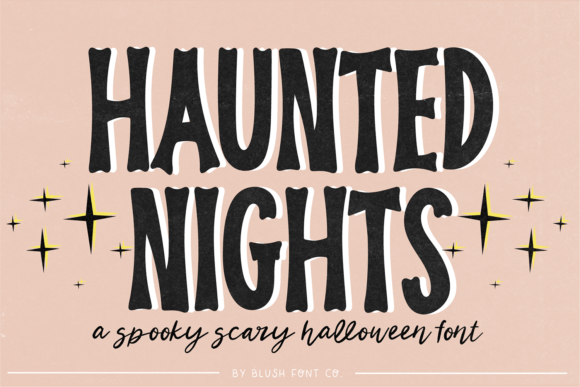
Introducing Haunted Nights Font, the ultimate choice for adding a spine-chilling touch to your Halloween creations! Crafted by the talented designers at blushfontco, this captivating display font is specifically tailored to elevate your spooky designs and set the perfect atmosphere for all things haunted.
Unleash your creativity with Haunted Nights Font, the best font for all things scary. Its unique and eerie aesthetic will send shivers down your spine and captivate anyone who lays eyes on your Halloween projects. Whether you're designing party invitations, creating web graphics, or decorating your haunted house, this font is a must-have for any Halloween enthusiast.
With Haunted Nights Font, your Halloween designs will truly come to life. Its hauntingly beautiful characters give your text an enchanting and mysterious allure that will leave a lasting impression on your audience. From ghostly posters to bone-chilling banners, this font adds an extra dose of fear and excitement to your creations.
Embrace the versatility of Haunted Nights Font, as it effortlessly adapts to any design concept you have in mind. Its wide range of characters and punctuations allows you to experiment with various typographic styles, ensuring your Halloween message is delivered with the perfect blend of terror and elegance.
Indulge in the bewitching beauty of Haunted Nights Font and watch as your Halloween creations become the talk of the town. Whether you're a professional designer or a passionate DIY enthusiast, this font provides you with the tools to bring your spine-tingling visions to life.